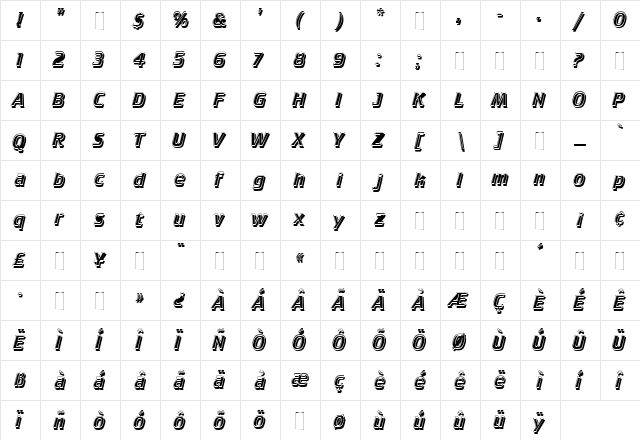
Crillee Italic Inline Shad Regular
Design Context for Crillee Italic Inline Shad Typeface
Crillee Italic Inline Shad is built around its visual character rather than neutral utility — its distinctive forms are designed to make an impression at display sizes. The slanted form adds forward momentum and visual energy.
Font Pairing: Pair with a clean neutral sans-serif for body copy to let Crillee Italic Inline Shad's character lead without overwhelming the composition.
Pro Tip: Treat Crillee Italic Inline Shad as the centrepiece of your typographic hierarchy. One strong heading set in a decorative face can carry an entire layout.